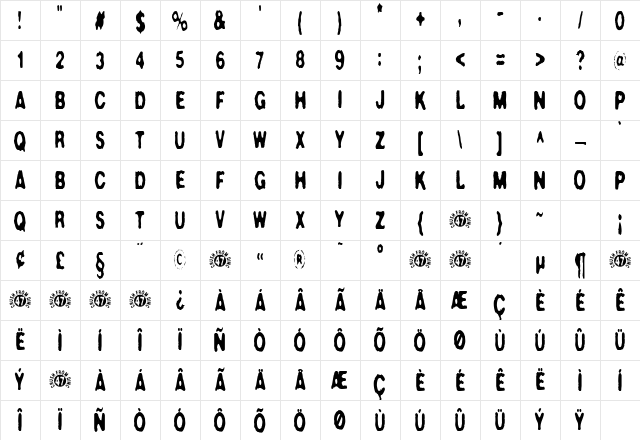
Crush47 Regular
Design Context for Crush47
Crush47 is a composed and adaptable typeface that performs quietly and consistently across a wide range of design contexts.